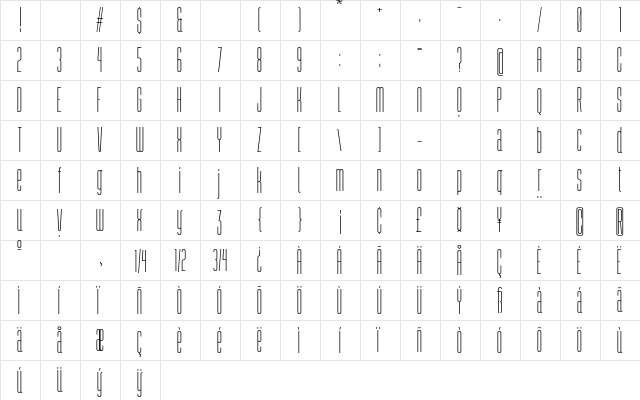
Abastina Regular
| Foundry | Matias Castro & SebastiᮠAsegurado |
| Designer | Matias Castro & SebastiᮠAsegurado |
Design Context for Abastina Typeface
Abastina offers clean, dependable letterforms without strong stylistic allegiance, making it a practical choice for designers who need flexibility.